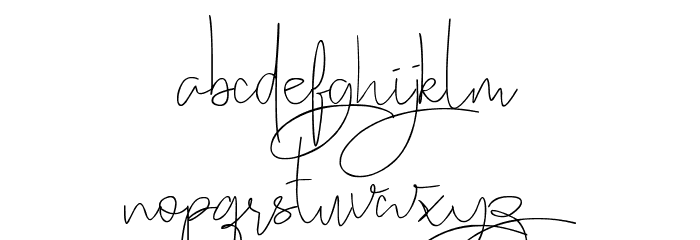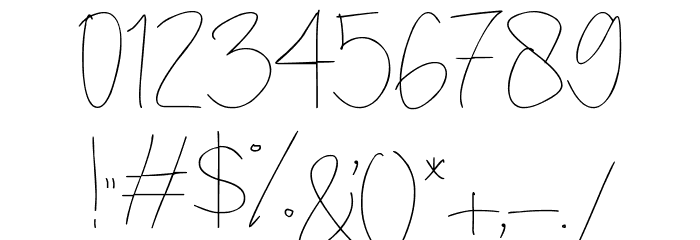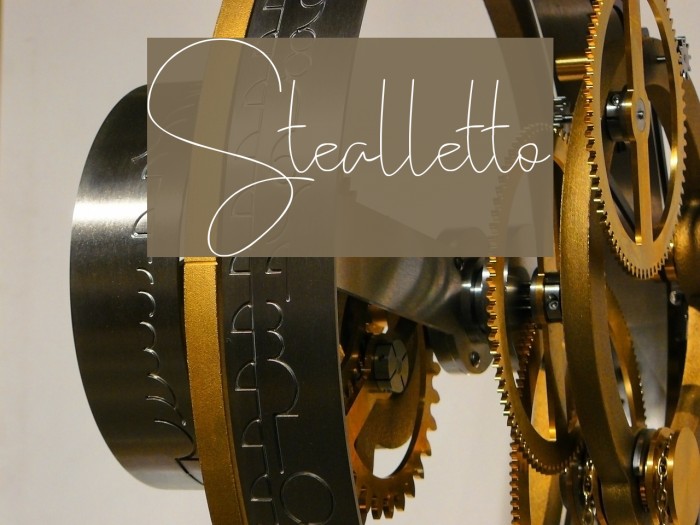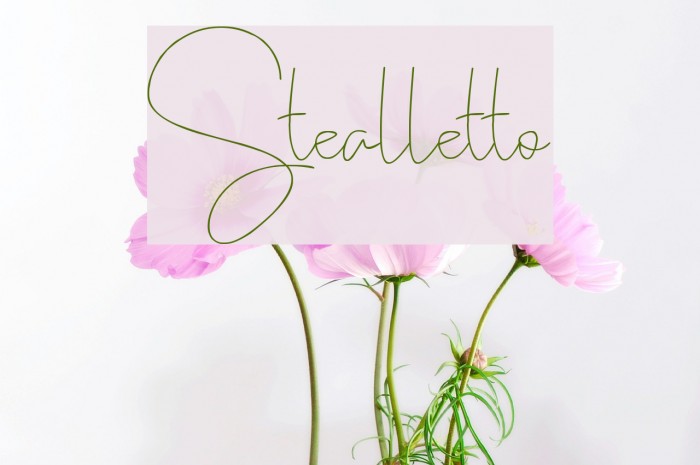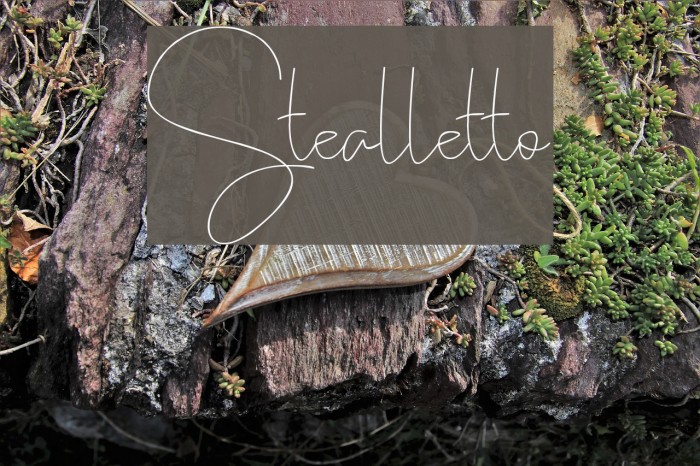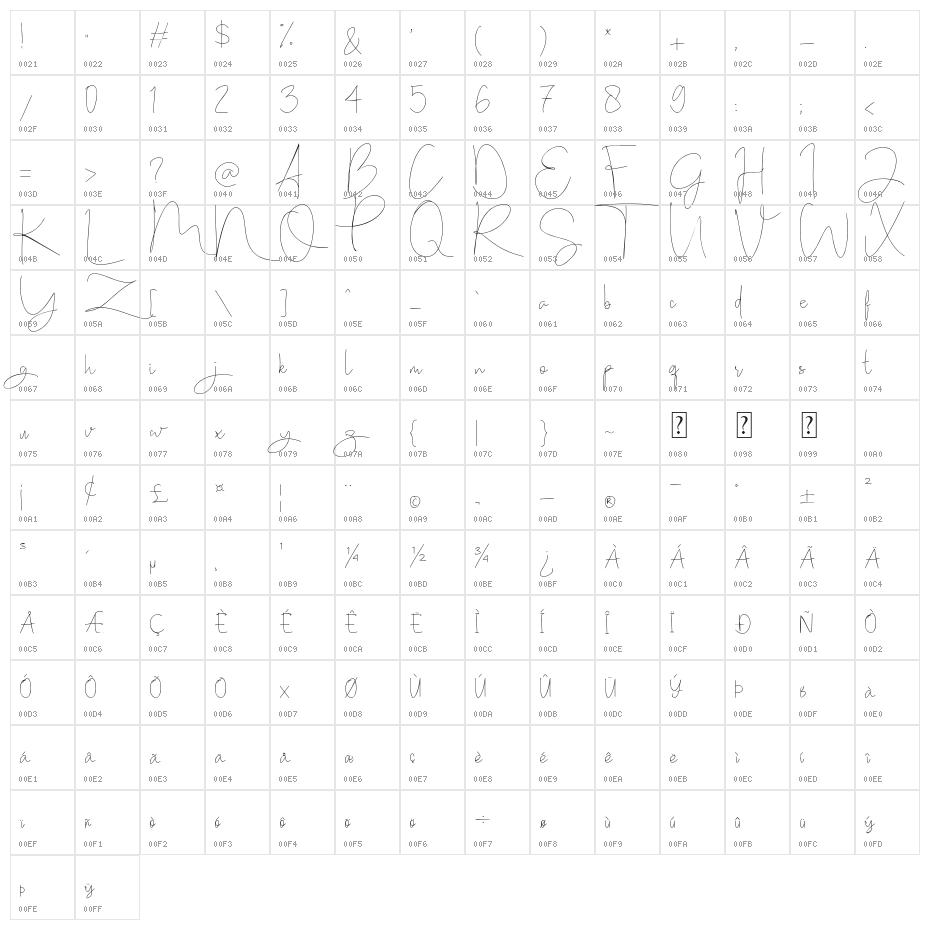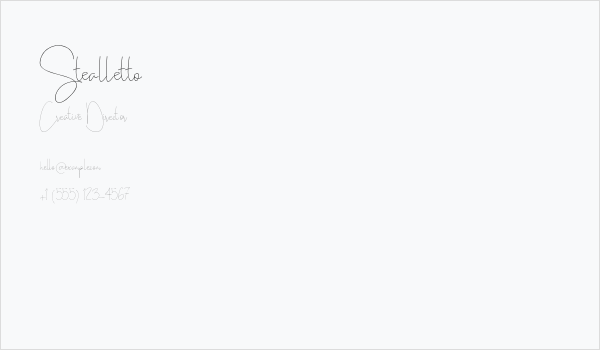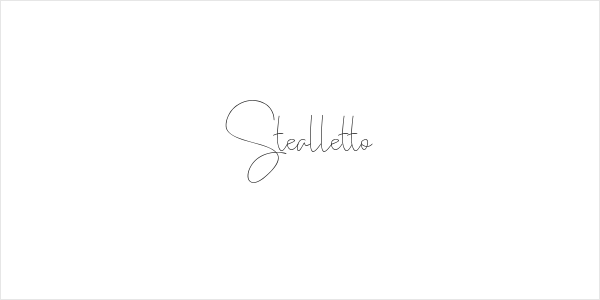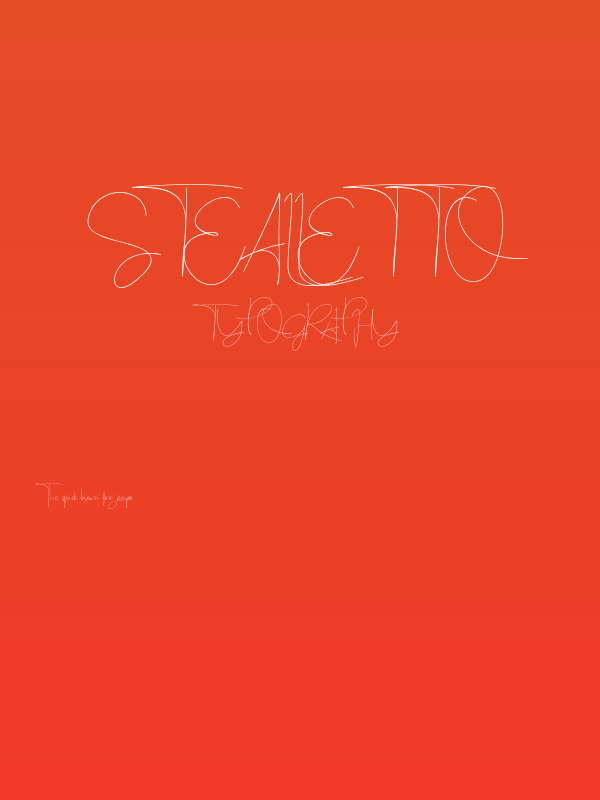
Stealletto Font
This font features an elegant, flowing script style with a handwritten appearance. The uppercase letters are tall and slender, with graceful loops and curves that give them a sophisticated look. The lowercase letters maintain a consistent style, with smooth, connected strokes that enhance the fluidity of the text. Numbers are clear and legible, following the same delicate line work. Special characters are thoughtfully designed to match the overall aesthetic, making this font versatile for various applications. The thin lines and airy spacing contribute to its refined and stylish appearance.
An elegant, flowing script font with a handwritten style and delicate line work.
- Proposed Projects: Ideal for wedding invitations, elegant branding, personal signatures, and artistic projects.
- Category: Script
- Weight: Light
- Character Spacing: Wide
- Overall Style: Elegant, Handwritten
- Use Case: Logos, Invitations, Artistic projects